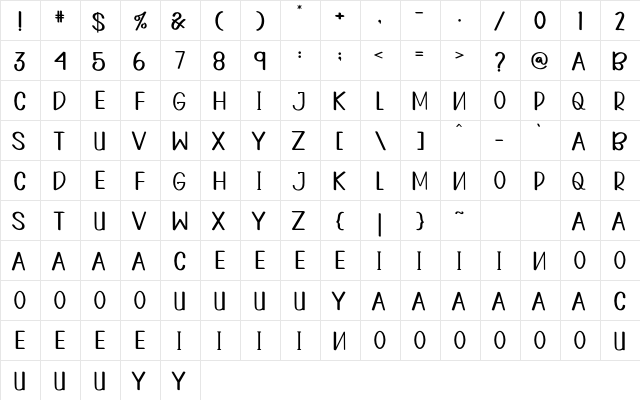
HOME SUNDAY Regular
HOME SUNDAY takes a measured approach to typography — its balanced proportions and neutral character make it a reliable workhorse for both digital and print work.